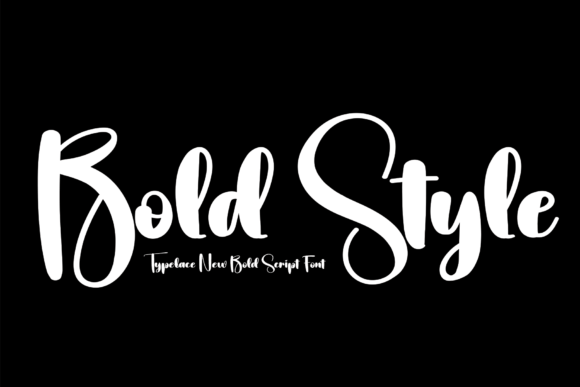
Unleashing Your Creativity with Bold Style Font
Remember that moment when you’re brainstorming ideas for a new project and suddenly, a spark of inspiration hits you? The room lights up, and you can almost hear the sound of creativity flowing through your veins. For designers, this moment is a gift, and with the right tools, it can be a game-changer. That’s where Bold Style Font comes in – a stylish, versatile font that’s perfect for making your creative vision a reality.
Bold Style Font is a collection of elegant, handwritten letters designed to add a touch of sophistication to any project. From wedding invitations to social media post logos, this font is the perfect choice for designers who want to make a statement. Its unique, bold style makes it stand out from the crowd, and its versatility ensures that it can be used in a wide range of applications.
Bold Style Font Key Features
- Unique Characteristics: The font features a distinctive bold and modern aesthetic, making it ideal for headings, titles, and other prominent text elements.
- Kerning and Ligatures: The font includes advanced kerning and ligature features for improved text flow and aesthetic appeal.
Bold Style Font Review
Overall, I’m impressed with the Bold Style Font, but it’s not without its quirks. Let’s dive into what works well and what doesn’t.
- Unique Character: The Bold Style Font has a distinct, eye-catching style that grabs attention. It’s perfect for headings and titles.
- Good Legibility: The font is clear and easy to read, even at smaller font sizes.
- Extensive Character Set: The font includes a wide range of characters, including international symbols and punctuation marks.
- Limited Kerning: The font’s kerning (the space between characters) can be inconsistent, leading to awkward spacing in certain words.
- Not Suitable for Body Text: The font’s bold style can make it difficult to read large blocks of text, so it’s best reserved for headings and titles.
- No Italic or Oblique: The font lacks italic and oblique styles, which can limit its versatility.
The Bold Style Font is a solid choice for adding visual interest to your designs, but it’s essential to use it judiciously and in combination with other fonts to avoid overemphasis. With some careful planning, it can be a valuable addition to your design toolkit.
Getting the Most Out of Bold Style Font
Alternatives to Bold Style Font
1. Impact Font
Impact font is a sans-serif font known for its bold, condensed appearance. It is ideal for use in headings, titles, and emphasis, particularly in print media or for retro-style designs. When to use: For titles, headings, and emphasis in print media or retro-style designs. Comparison to Bold Style Font: Impact font is more condensed and has a more dramatic appearance than Bold Style Font, making it more suitable for titles and headings.
2. Arial Black
Arial Black is a bold version of the popular sans-serif font Arial. It is suitable for use in body text, headings, and titles, particularly in digital media or for corporate designs. When to use: For body text, headings, and titles in digital media or corporate designs. Comparison to Bold Style Font: Arial Black is a more modern and sleek alternative to Bold Style Font, with a more consistent line width and a greater sense of sophistication.